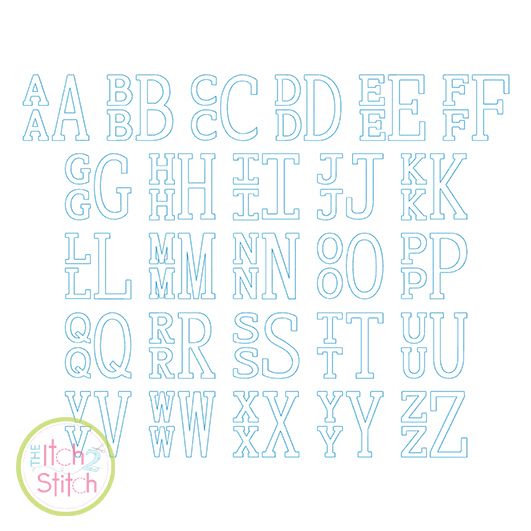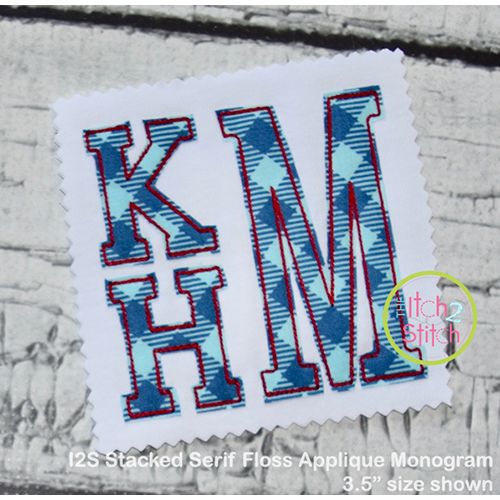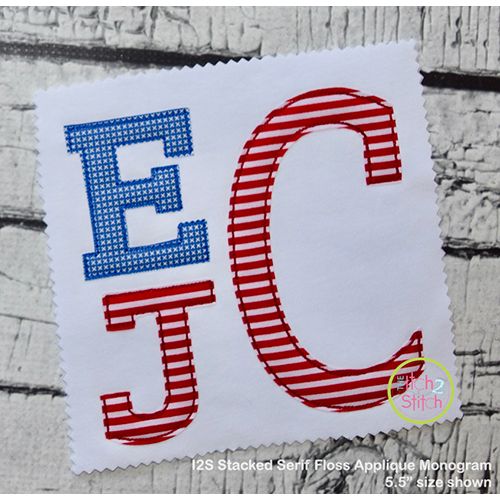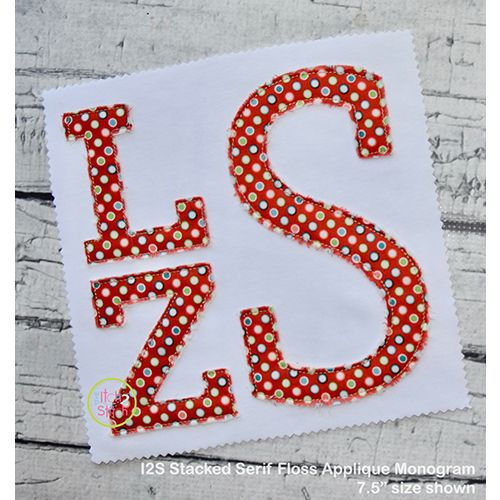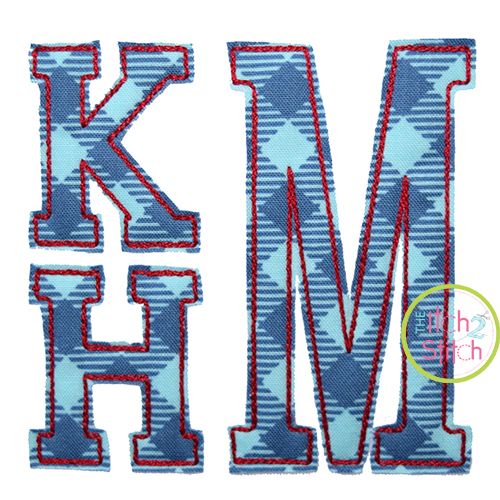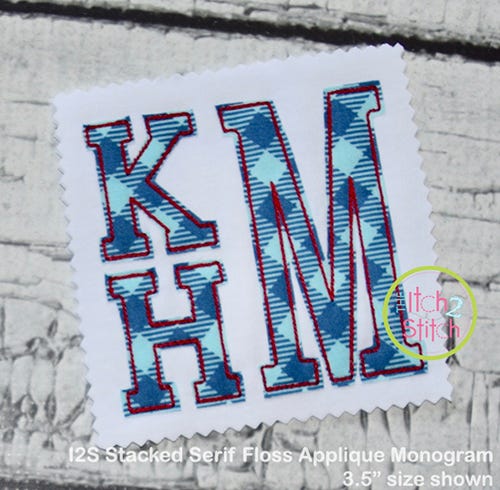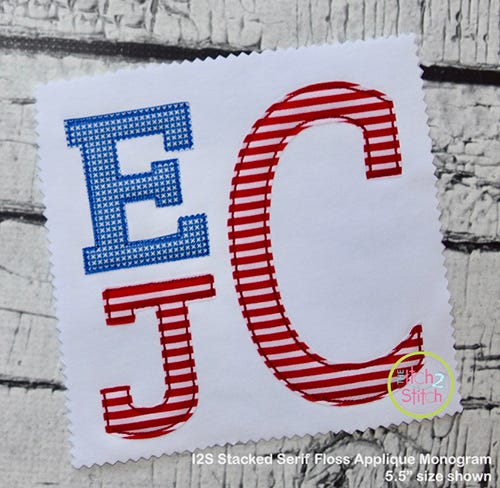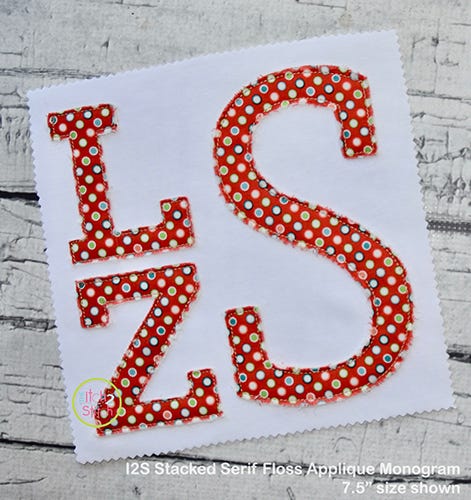
To create a square shaped monogram with this font, use two small "lowercase" letters stacked on the left and a large "capital" letter on the right from the same size folder.Ā